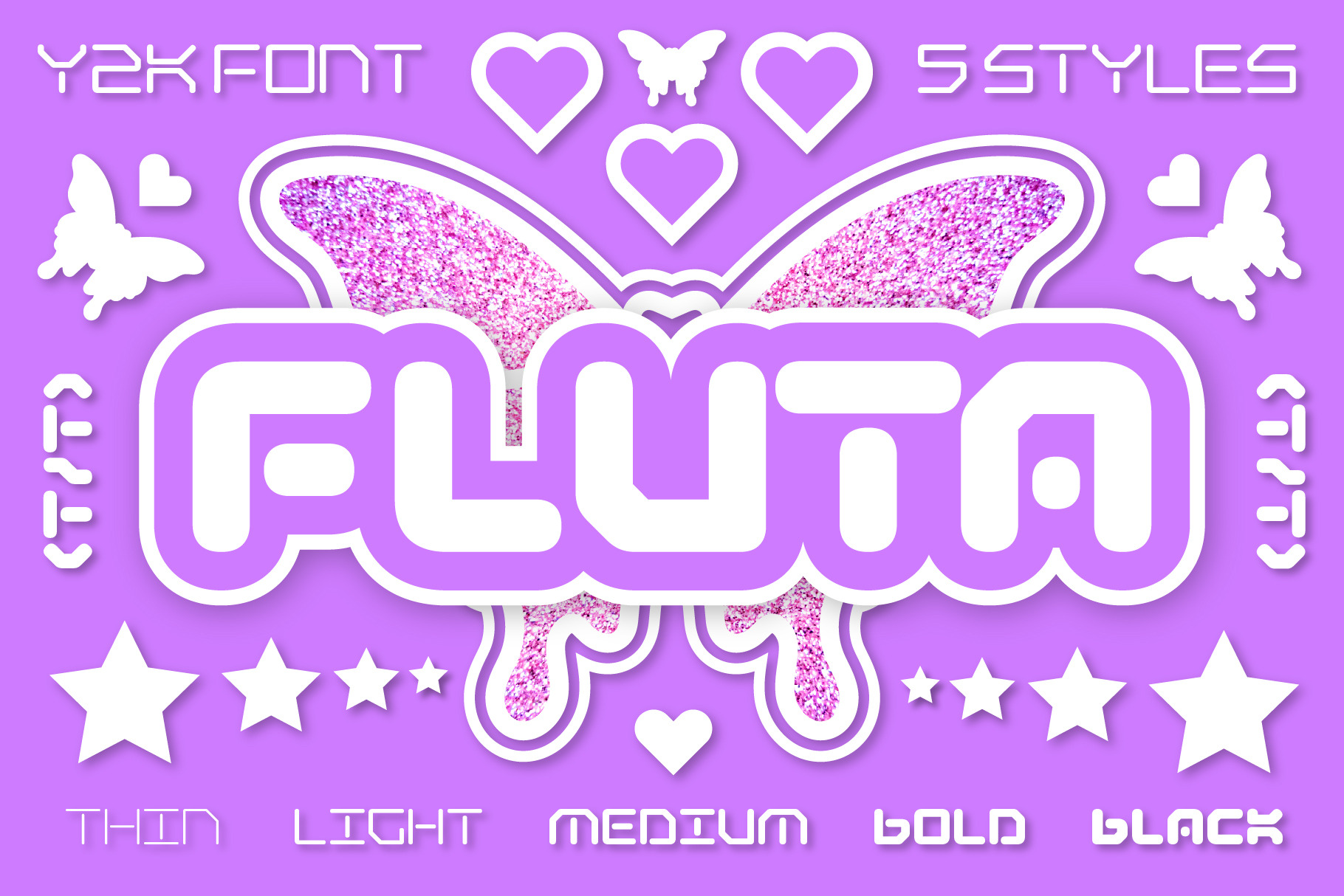
Y2K Variable Font: Fluta
Fluta is a variable weight font that is inspired by the digital bubble gum pop aesthetics of Y2K. Fluta Comes is 5 styles. This font adds a modern take on the retro 2000's look. It is perfect for logos, editorial, magazines, posters, branding, Instagram, social media, and whatever else you are looking to make.
- 5 Weights
- Variable
- Caps